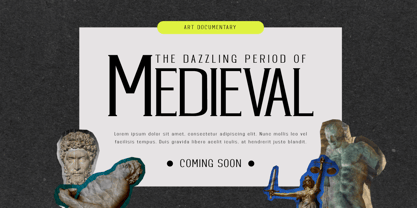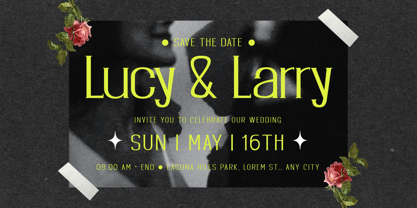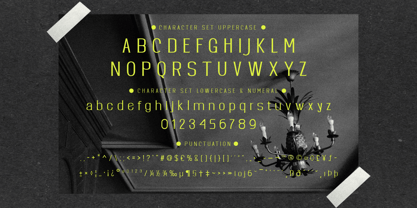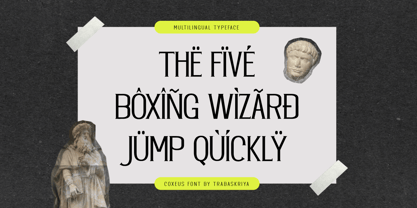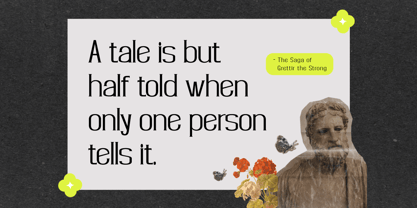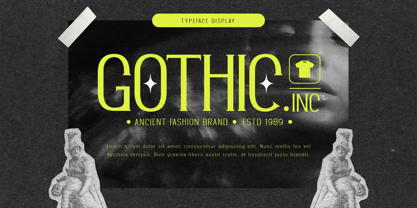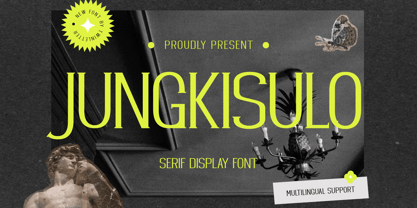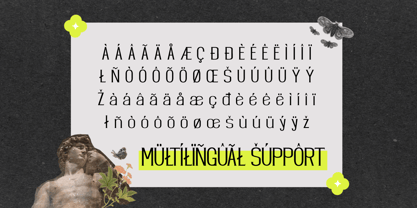
Jungkisulo
The Jungkisulo Font Family was designed by Murozakul Akhsan and published by Trabas Kriya. Jungkisulo contains 1 styles.
Jungkisulo is a font that exudes elegance. This serif display font combines classic style with modern design, creating a look that is both timeless and contemporary. Its elegant serifs and balanced characters make it a versatile choice for a wide range of designs, from sophisticated logos to compelling headlines. With Jungkisulo, your designs will always look their best.
- Fonts include Multilingual: Support for 85 languages.
Afrikaans, Albanian, Asu, Basque, Bemba, Bena, Breton, Catalan, Chiga, Cornish, Croatian, Czech, Danish, Dutch, Embu, English, Esperanto, Estonian, Filipino, Finnish, French, Friulian, Galician, Gusii, Hungarian, Indonesian, Irish, Italian, Kabuverdianu, Kalenjin, Kamba, Kikuyu, Kinyarwanda, Latvian, Lithuanian, Lower, Sorbian, Luo, Luxembourgish, Luyia, Machame, Makhuwa-Meetto, Makonde, Malagasy, Maltese, Manx, Meru, Morisyen, North, Ndebele, Norwegian Bokmål, Norwegian Nynorsk, Nyankole, Oromo, Polish, Portuguese, Quechua, Romanian, Romansh, Rombo, Rundi, Rwa, Samburu, Sango, Sangu, Scottish, Gaelic, Sena, Serbian, Shambala, Shona, Slovak, Slovenian, Soga, Somali, Spanish, Swahili, Swedish, Swiss German, Taita, Teso, Turkish, Upper Sorbian, Uzbek (Latin), Volapük, Vunjo, Walser, Zulu.